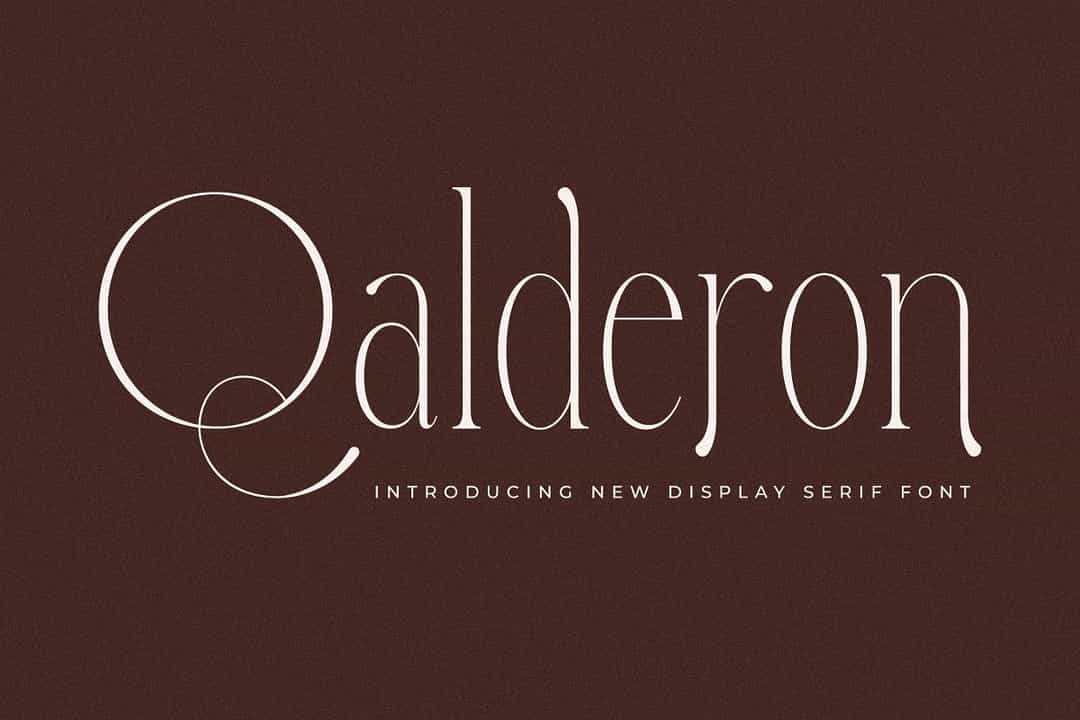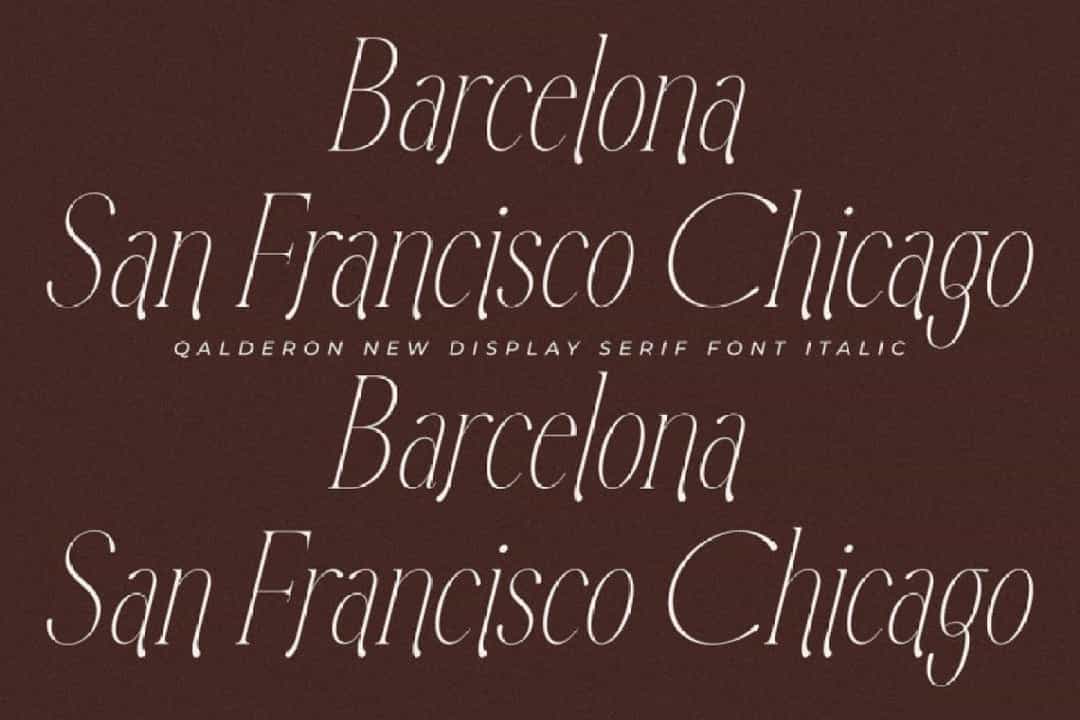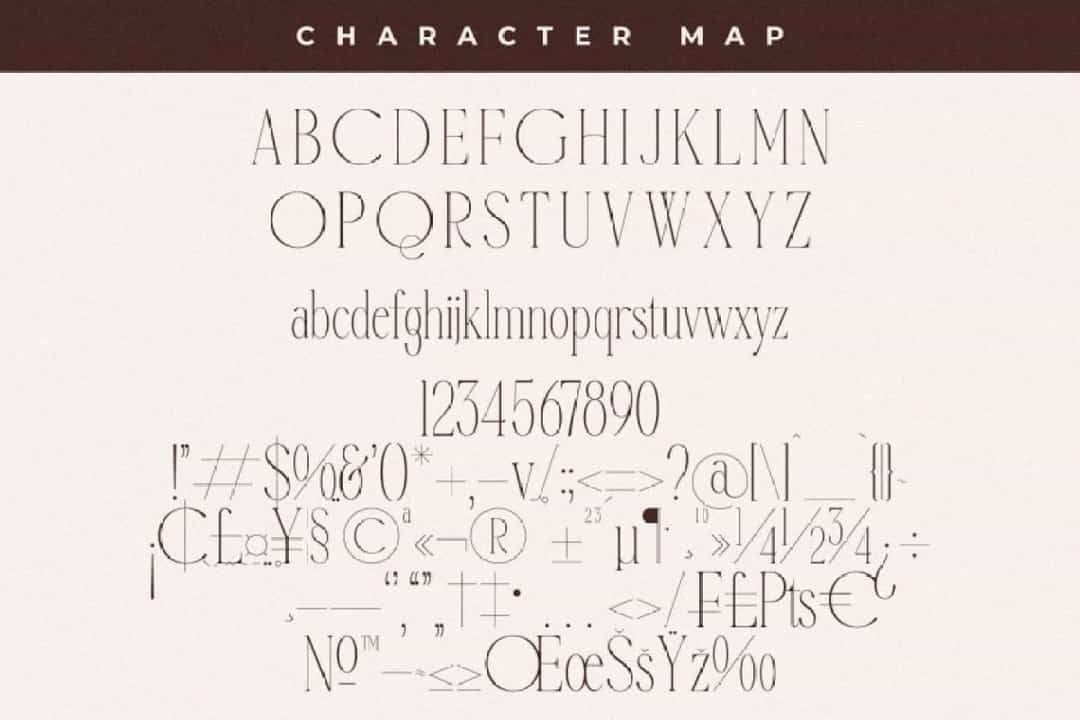
Qalderon is a contemporary yet traditional display serif font with its distinctive style and modern appeal, making it suitable for sophisticated logo designs, book or film title design, fashion brand clothing designs, magazine letters and quotes, among other applications.